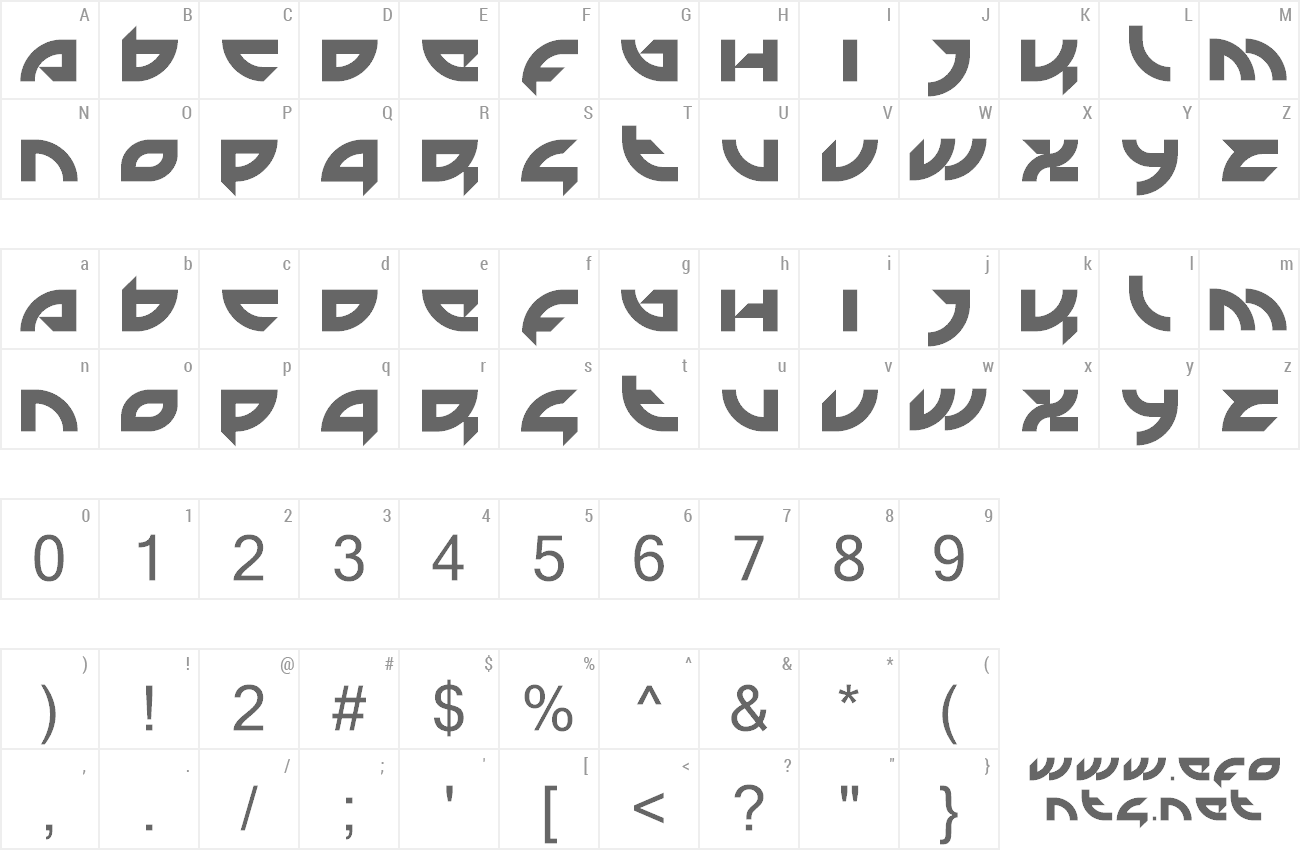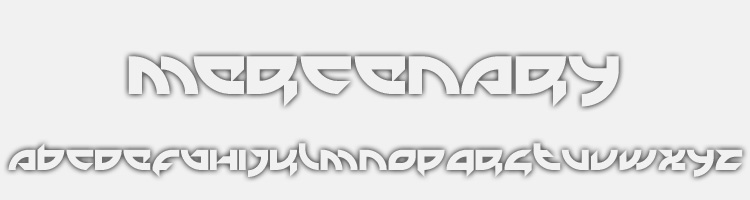
| Font name: | Mercenary |
| Author: | defaulterror |
| Note by defaulterror | |
| Mercenary came about while creating the Augment logo. Schmaak it broken! |